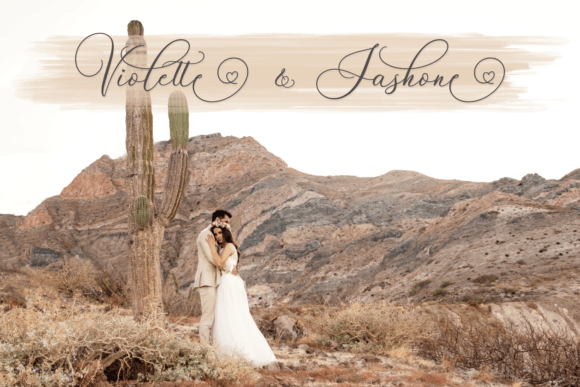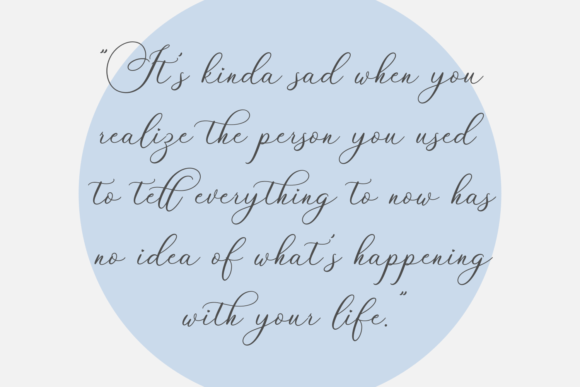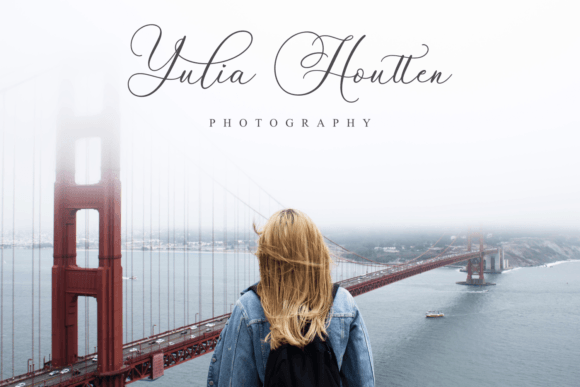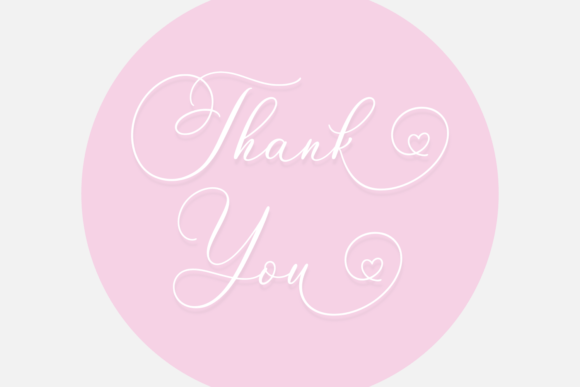
Discover the Timeless Elegance of Anethasya Font
There’s nothing quite like the feeling of holding a beautifully crafted invitation or a professionally designed logo in your hands. The perfect font can elevate any design, and that’s exactly what the Anethasya Font does. This classy calligraphy font adds an elegant touch to any project, making it a true standout.
Whether you’re a seasoned designer or just starting out, the Anethasya Font is a valuable addition to your toolkit. With its PUA encoding, you can access all glyphs and swashes with ease, giving you endless possibilities for creativity. From logos and labels to branding and invitations, this font is the perfect choice for designers looking to add a touch of sophistication to their work.
Anethasya Font Key Features
- Font Family: Anethasya, Anethasya Italic, Anethasya Bold, Anethasya Bold Italic
- Unique Characteristics: Anethasya features a unique blend of modern and vintage elements, with intricate details and elegant lines, making it suitable for various design applications, including branding, publishing, and advertising.
Anethasya Font Review
Anethasya Font is a beautiful, elegant font that works well in a variety of applications. ✨ Its flowing lines and subtle flourishes make it perfect for creating a sense of sophistication and refinement. ✨ It’s particularly well-suited for use in magazines, books, and other publications where a touch of luxury is desired.
The font’s versatility is one of its greatest strengths. ✨ It can be used for both body text and headings, and it looks great in a range of sizes and styles. ✨ It’s also highly legible, making it easy to read even at smaller font sizes.
- ⚠️ Anethasya Font may not be suitable for use in situations where a more informal or casual tone is desired. Its elegant lines and refined feel may come across as too formal for certain applications.
- ⚠️ The font’s flourishes and subtle details may be difficult to read at very small font sizes or in situations where the text is distorted or stretched.
Overall, I’m impressed with Anethasya Font. It’s a high-quality font that’s well-suited for a wide range of applications. With its elegant lines, versatility, and high legibility, it’s a great choice for designers looking to add a touch of sophistication to their work.
For a professional look, pair Anethasya Font with a clean and minimalistic design.
For a creative look, experiment with Anethasya Font in combination with bold shapes and bright colors.
For a polished look, pair Anethasya Font with a clear and concise design.
Anethasya Font is perfect for:
- Food and drink packaging
- Editorial and creative content
Alternatives to Anethasya Font for Designers
Alice Script
Alice Script is a beautiful and elegant script font perfect for creating a whimsical and romantic atmosphere. It is ideal for use in wedding invitations, greeting cards, and other designs where a touch of sophistication is needed.
Compared to Anethasya Font, Alice Script has a more refined and delicate feel, making it suitable for designs that require a softer and more feminine touch.
Great Vibes is a modern script font that is perfect for creating a lively and energetic atmosphere. It is ideal for use in designs that require a bold and playful touch, such as music posters, event invitations, and social media graphics.
Compared to Anethasya Font, Great Vibes has a more dynamic and expressive feel, making it suitable for designs that require a high level of energy and movement.
Carolyna Pro is a elegant and sophisticated script font perfect for creating a luxurious and high-end atmosphere. It is ideal for use in designs that require a touch of glamour and sophistication, such as fashion magazines, luxury branding, and high-end packaging.
Compared to Anethasya Font, Carolyna Pro has a more refined and polished feel, making it suitable for designs that require a high level of elegance and sophistication.